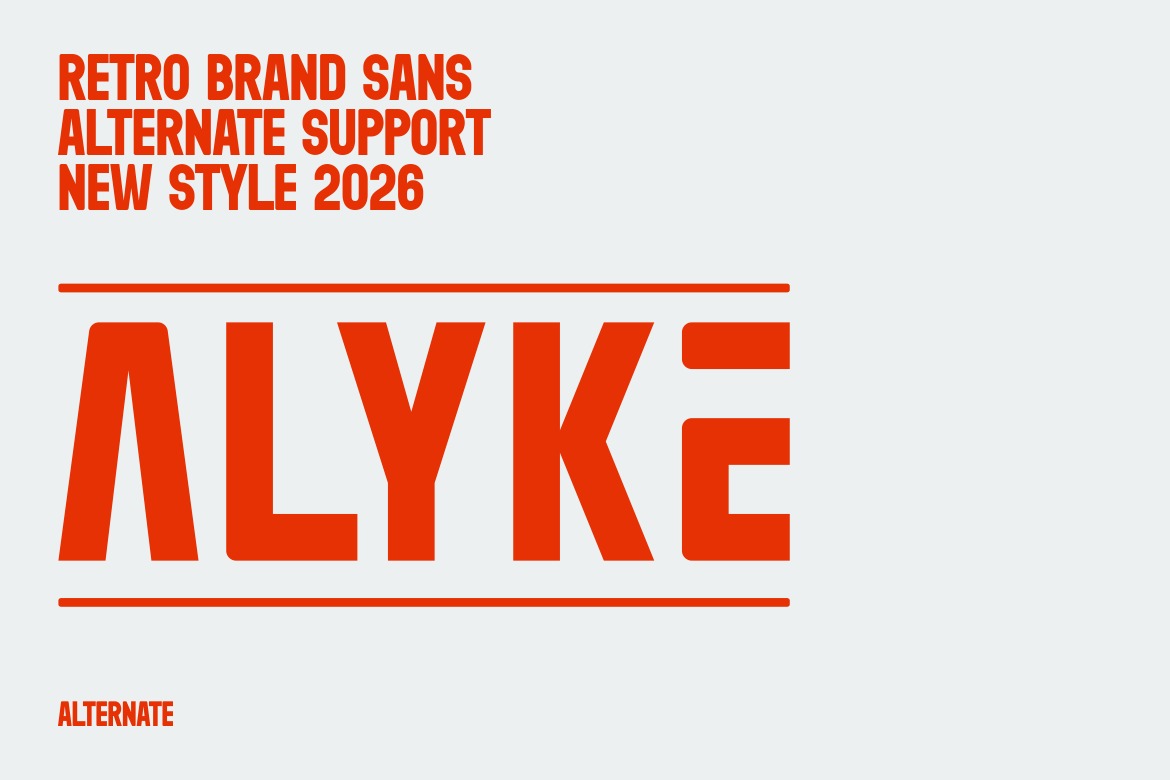
Alyke – Brand Sans Serif Font
Alyke – Brand Sans Serif Font is a flexible and reliable font created to fit multiple design needs, from branding and packaging to social media and editorial layouts. Alyke – Retro Brand Sans is a bold and authentic display font. The font is suitable for any branding project like logo, esport, and many more. outstanding in a wide range of contexts.